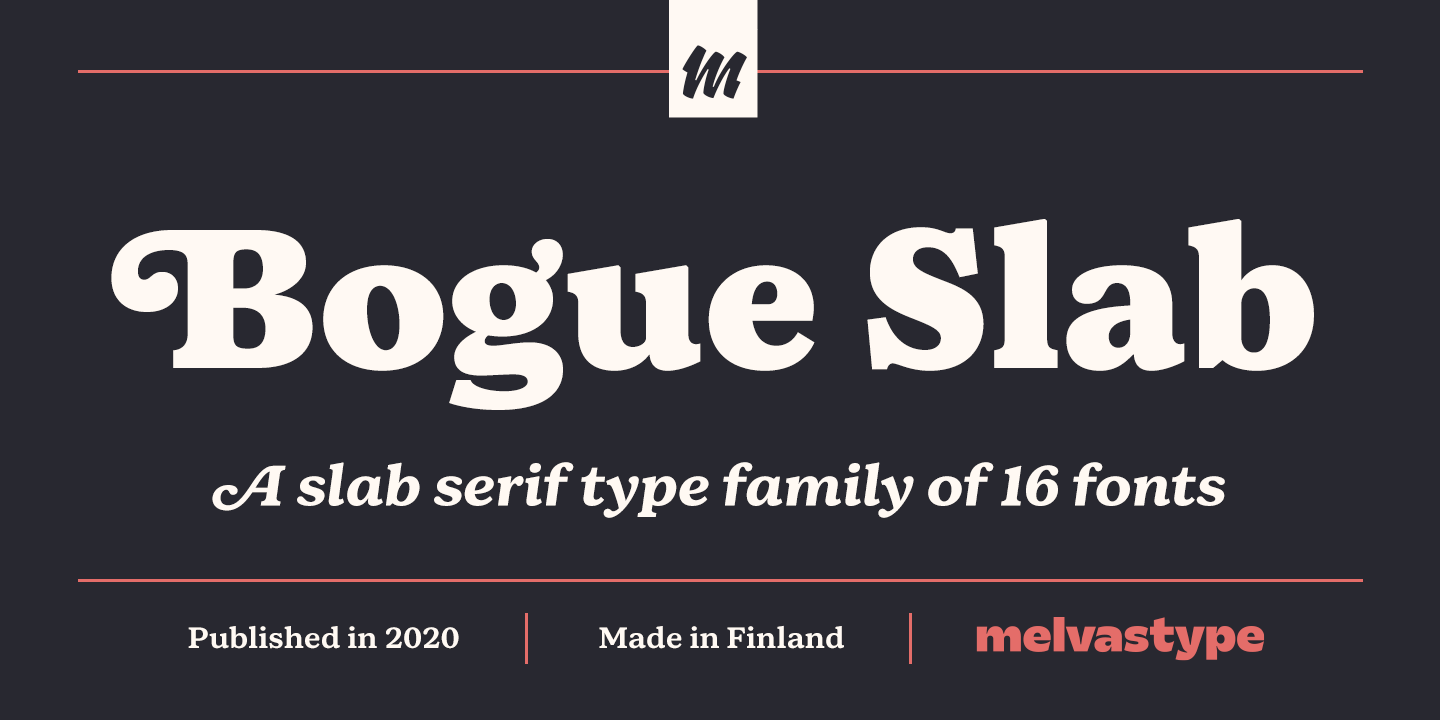
The Bogue Slab Font Free Download is a robust slab serif typeface perfect for editorial headlines, branding, packaging, posters, and signage. Its thick, blocky serifs and bold structure give a strong, authoritative presence.
What makes the Bogue Slab Font so exciting is its blend of vintage charm and modern toughness. This font balances readability with character, making your designs both impactful and stylish.
The Bogue Slab Font family includes Regular, Italic, and Bold styles, providing designers with versatile options for dynamic typography.